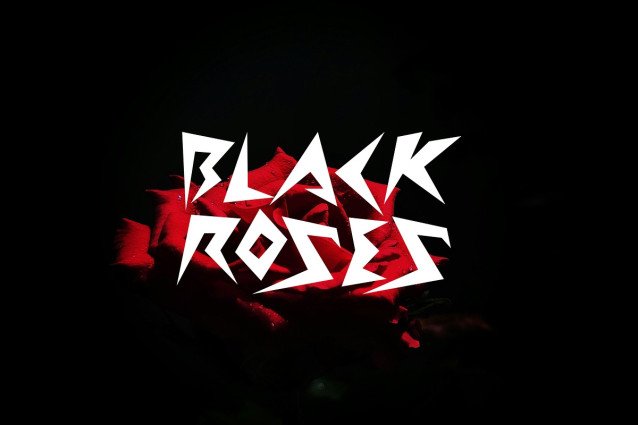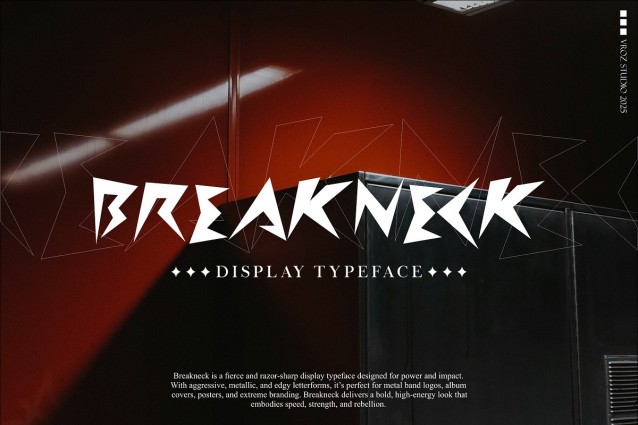
Breakneck Font
Breakneck Font is a fierce and heavy display typeface inspired by the raw energy of metal music. With sharp edges, aggressive lines, and a bold attitude, this font is designed to stand out and scream power. Whether you’re naming a band, creating merch designs, or branding music gear, Breakneck delivers an intense visual punch that commands attention.